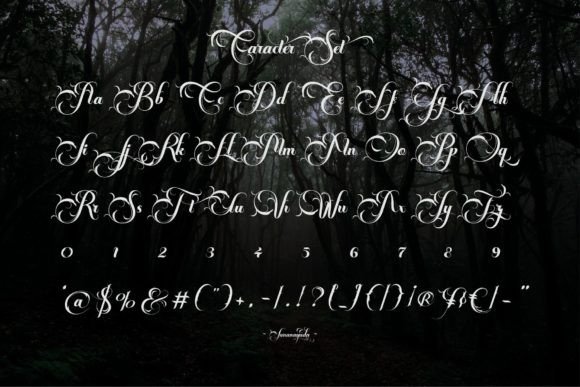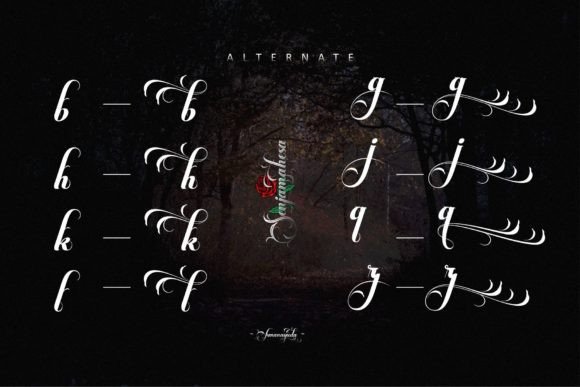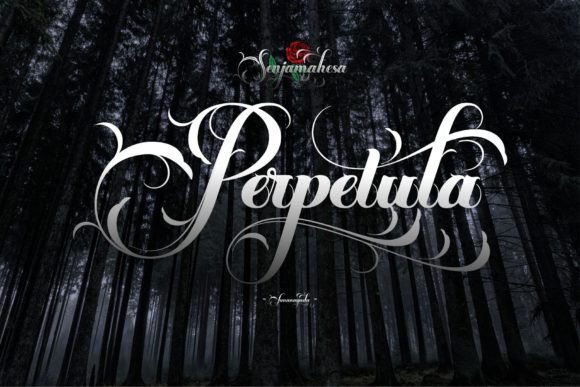
Introduction to Senjamahesa Font
Senjamahesa carries some strange shapes inspired by plants, mainly flowers.
You can find several advantages to it, such as being able to use it for tattoos, calligraphy, band logos, clothing logos, shop logos, or industrial needs .
Key Features of Senjamahesa Font